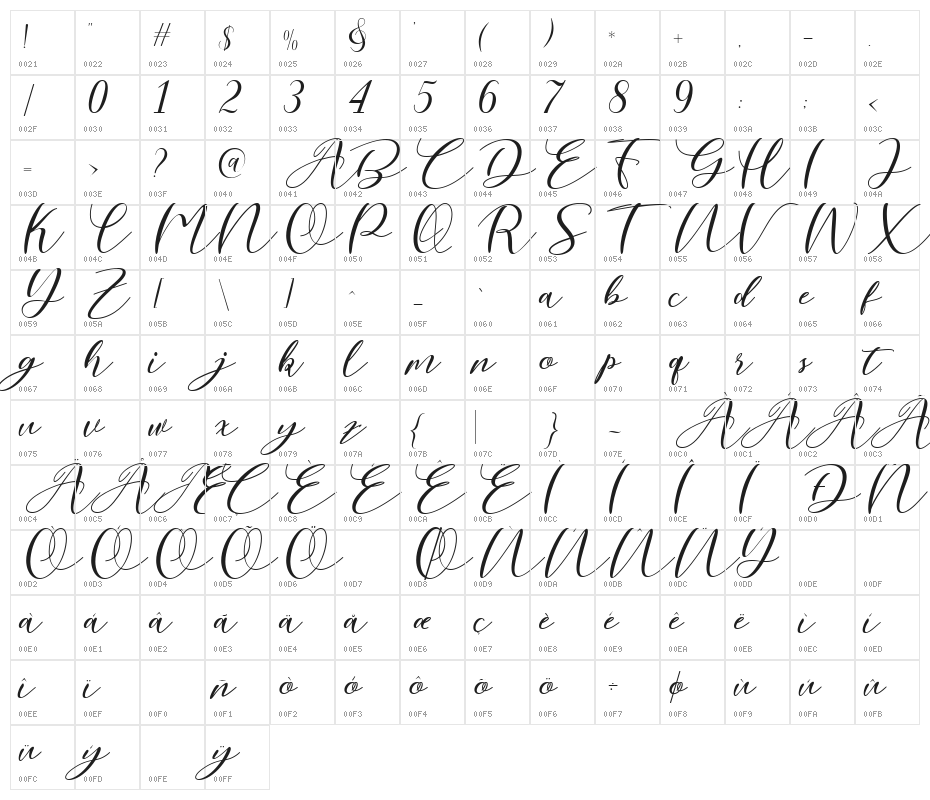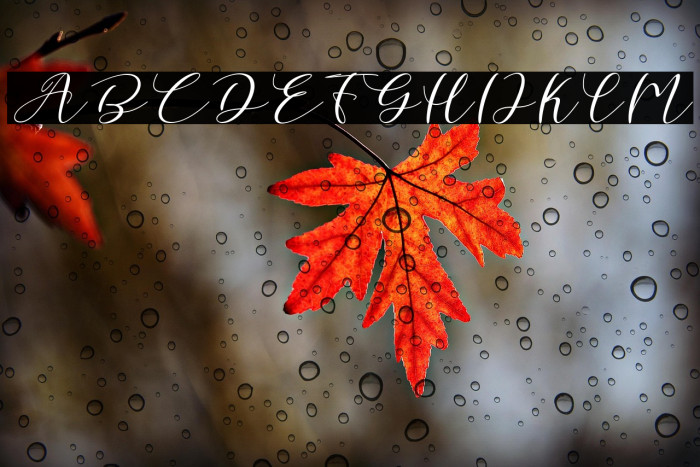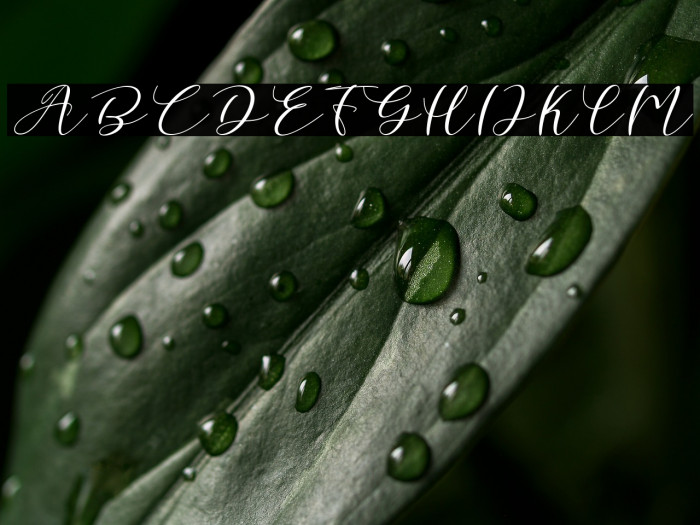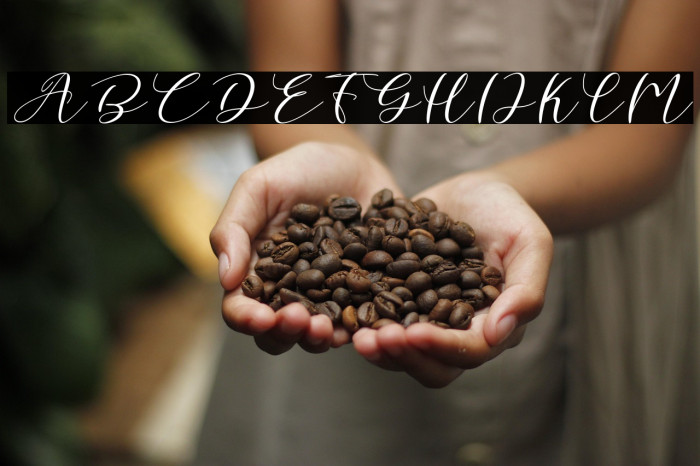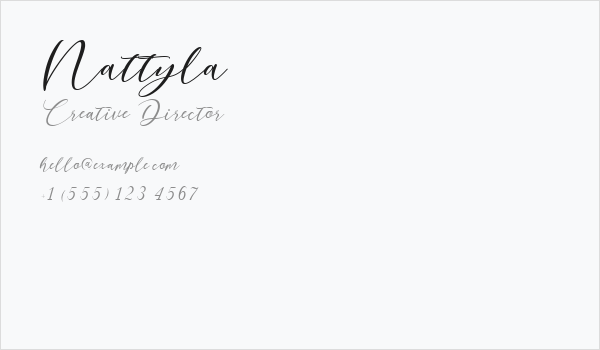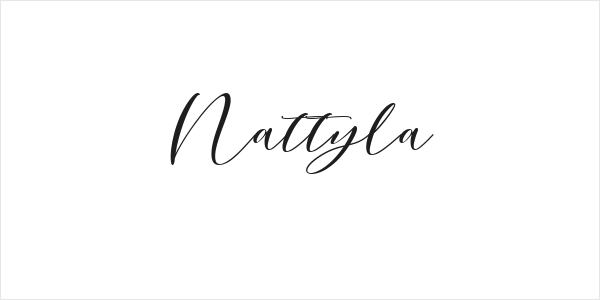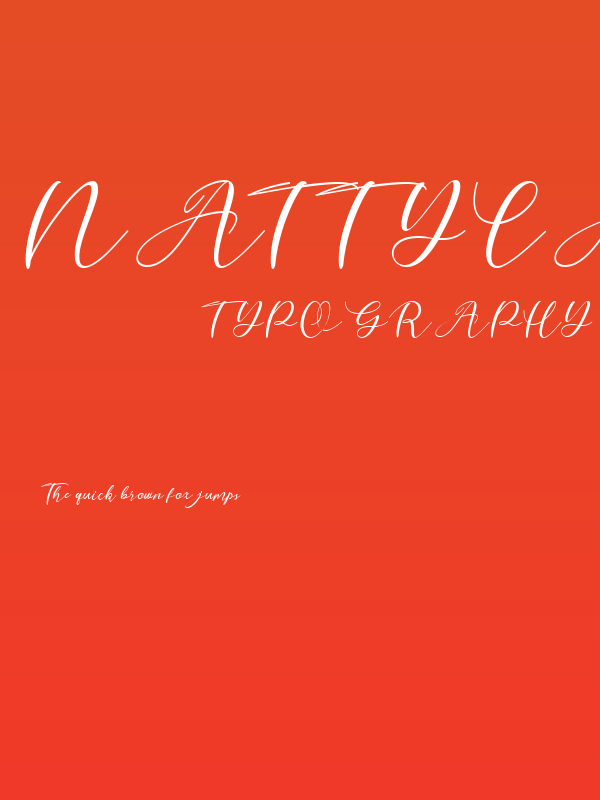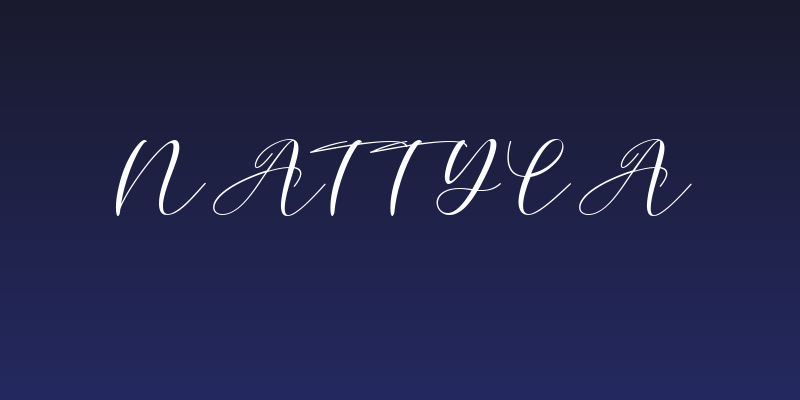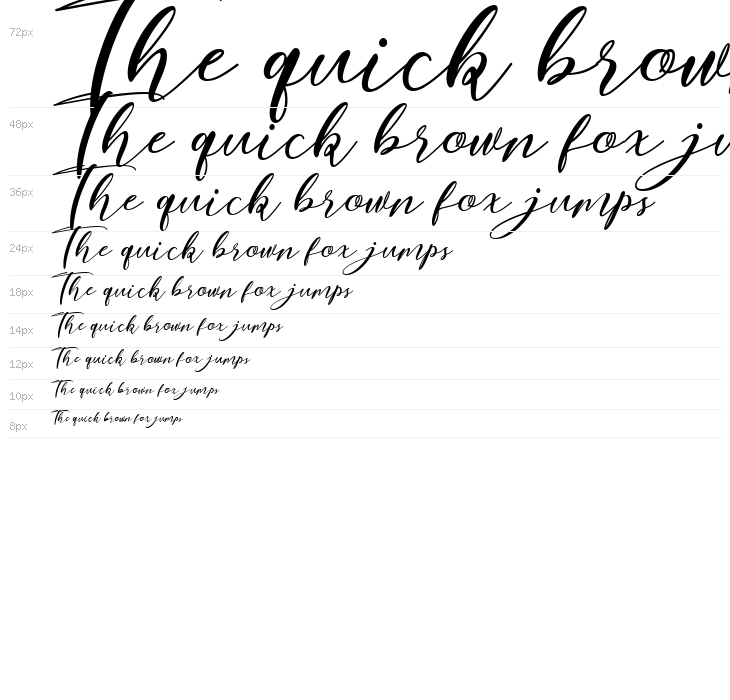
Nattyla Font
Nattyla Description
This font exudes elegance and fluidity, characterized by its cursive style and smooth, flowing lines. The uppercase letters are distinct with a graceful slant, while the lowercase letters maintain a consistent rhythm, enhancing readability. The numerals are stylishly integrated, complementing the overall aesthetic. Special characters are thoughtfully designed, maintaining the font's sophisticated appearance. This script font is ideal for projects that require a touch of class and refinement.